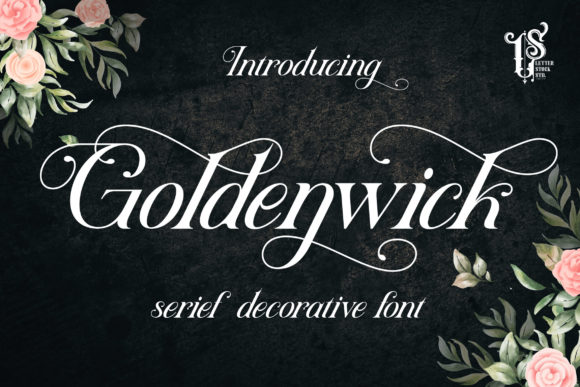
Journey into the Realm of Goldenwick: A Font that Captivates and Enchants
In the world of design, fonts hold the power to transform ordinary words into captivating expressions of art. And among the myriad fonts that grace the digital realm, Goldenwick stands as a true masterpiece, a serif font meticulously crafted to bring a touch of nature's elegance to your creative endeavors.
Goldenwick's exquisite curves and delicate serifs evoke the beauty of handwritten calligraphy, adding a personal and authentic feel to your designs. Its timeless charm lends itself effortlessly to a wide range of projects, from heartfelt invitations and elegant packaging to eye-catching logos and enchanting advertising pamphlets.
Whether you're a seasoned designer seeking to elevate your work or a novice just starting your creative journey, Goldenwick will be your faithful companion. Its versatility knows no bounds, allowing you to effortlessly create designs that resonate with your audience and leave a lasting impression.
With Goldenwick by your side, you'll discover a world of possibilities. Its natural aesthetic will breathe life into your logos, making them instantly recognizable and unforgettable. Your packaging designs will exude a touch of sophistication, inviting customers to indulge in the beauty of your products. And your invitations will carry a sense of timeless elegance, ensuring your special occasions are remembered for years to come.
So, embrace the magic of Goldenwick and embark on a creative journey that will ignite your imagination and captivate your audience. Let your designs bloom with the beauty of nature and leave an indelible mark on the world.